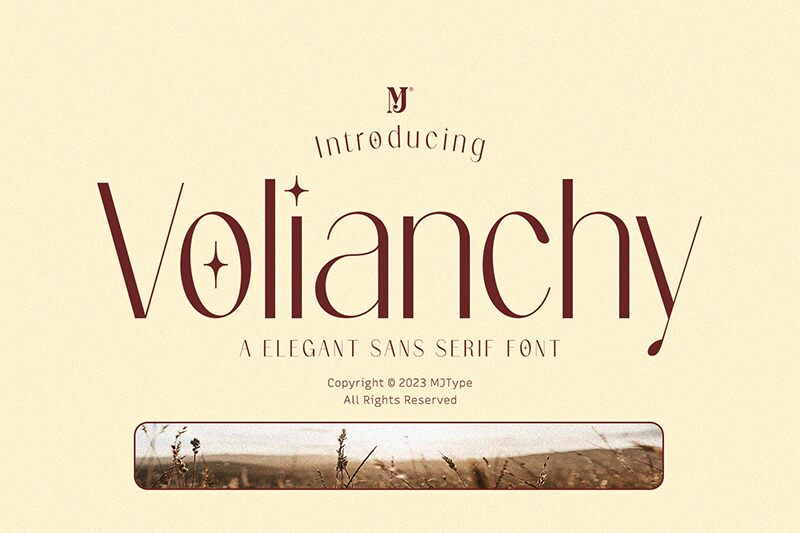
Volianchy, crafted by the skilled hands at MJType, stands as a beacon of modernity in the realm of typography. This elegant sans serif font marries the grace of semi-light weight with a tastefully condensed width, forging a harmonious balance between sophistication and practicality. Its sleek contours and clean lines evoke an air of contemporary chic that seamlessly fits into an array of creative projects.
Designed to captivate and elevate, Volianchy is a versatile ally for designers aiming to impart their work with a sense of refinement. Whether gracing the pages of a luxury magazine or anchoring the visual identity of cutting-edge brands, this typeface exudes versatility without sacrificing style. Embrace Volianchy's potential to transform text into a statement piece that resonates across various platforms and mediums.